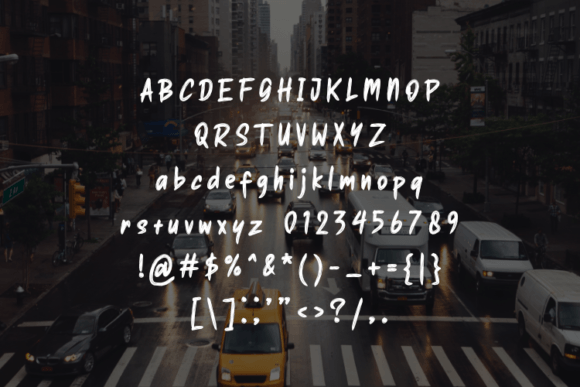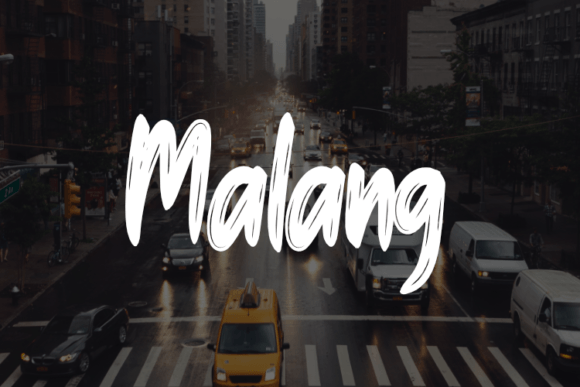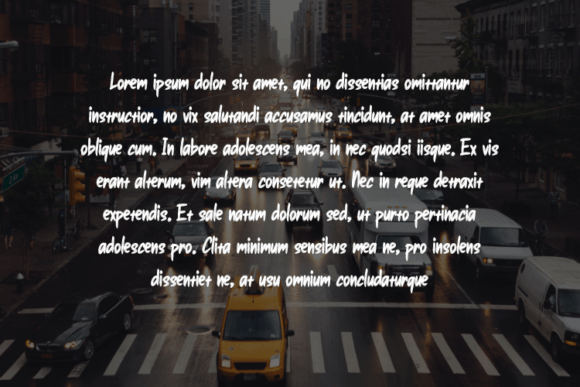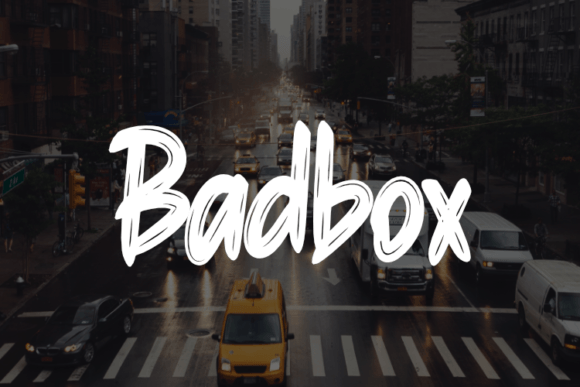
Introducing Badbox Font: Unleash Your Creativity with Endless Possibilities
In the world of fashion design, a font can make all the difference in setting your brand apart from the rest. If you’re a designer or crafter looking to add an edgy touch to your clothing and t-shirt designs, look no further than Badbox Font. This versatile font is specifically designed for innovative minds in fashion, offering a unique voice to your products that will leave a lasting impression on your audience.
What is Badbox Font?
Badbox Font is a carefully crafted typeface that embodies the perfect blend of style, creativity, and functionality. Its design is centered around providing a bold and captivating aesthetic that’s perfect for making a statement. Whether you’re looking to create eye-catching logos, trendy t-shirt designs, or stylish fashion labels, Badbox Font is the ideal choice.
Key Features of Badbox Font
- Universal Compatibility: Badbox Font is designed to work seamlessly with all designs and software, ensuring that your creative vision is never compromised. Whether you’re using Adobe Illustrator, Photoshop, or any other design tool, Badbox Font integrates perfectly, giving you the flexibility to work with your preferred software.
- Endless Possibilities: With Badbox Font, the possibilities are endless. Use it to create stunning fashion designs, craft unique logos, or add a personal touch to your t-shirt designs. The font’s versatility ensures that it can adapt to any design style, making it an indispensable tool in your creative kit.
- Edgy Style: Badbox Font boasts an edgy style that’s perfect for designers and crafters who want to add a bold touch to their work. Its unique design elements make it stand out from other fonts, ensuring that your designs grab attention and leave a lasting impression.
Benefits of Using Badbox Font
By incorporating Badbox Font into your design workflow, you can enjoy a range of benefits that can elevate your designs and streamline your creative process. Some of the key benefits include:
- Enhanced Creativity: With Badbox Font, you can unlock new creative possibilities and experiment with different design styles. The font’s versatility and unique design elements inspire creativity, helping you to push the boundaries of your designs.
- Time-Saving: Badbox Font is designed to work seamlessly with all software and designs, saving you time and effort in the design process. You can focus on creating stunning designs without worrying about font compatibility issues.
- Consistency: Using Badbox Font ensures consistency across your designs, which is essential for building a strong brand identity. The font’s unique style and design elements help to create a cohesive look that resonates with your audience.
Badbox Font is a game-changer for designers and crafters looking to add an edgy touch to their fashion designs. With its universal compatibility, endless possibilities, and edgy style, Badbox Font is the perfect choice for anyone looking to elevate their designs and communicate their imagination in a bold, captivating manner. Whether you’re a seasoned designer or just starting out, Badbox Font is an indispensable tool that can help you unlock your creative potential and take your designs to the next level.